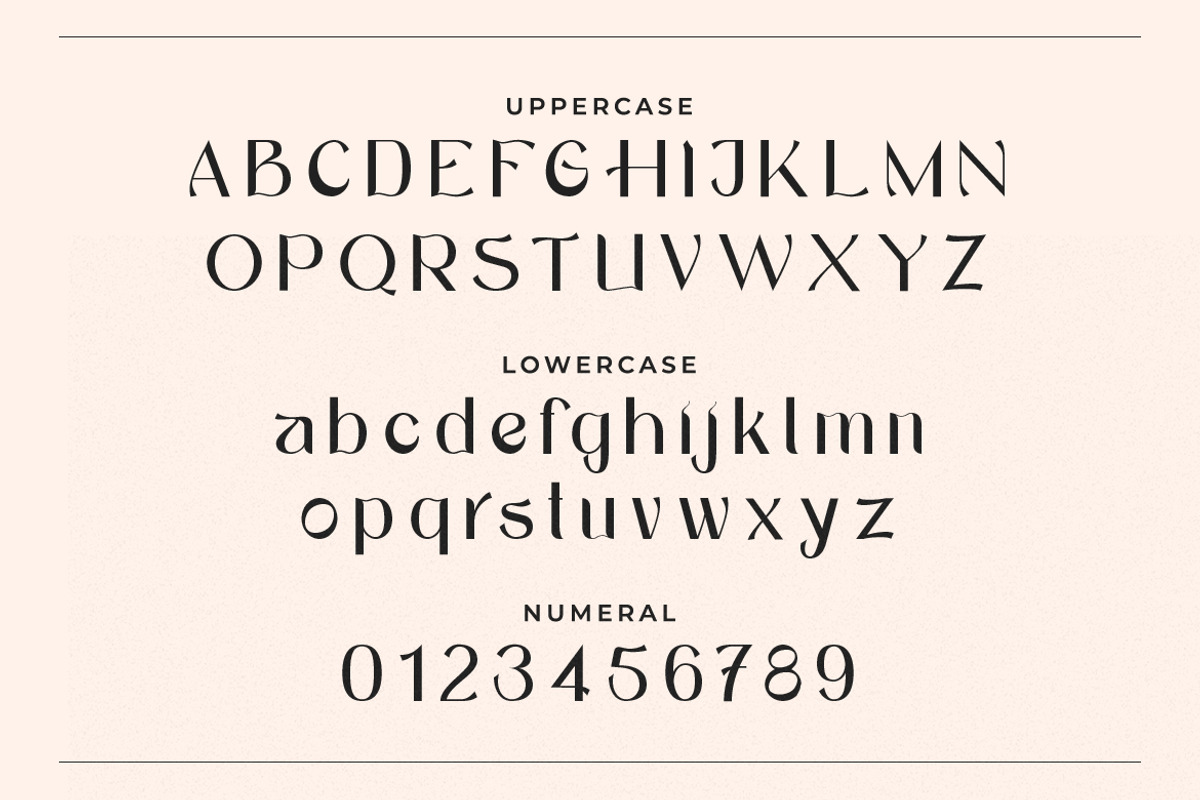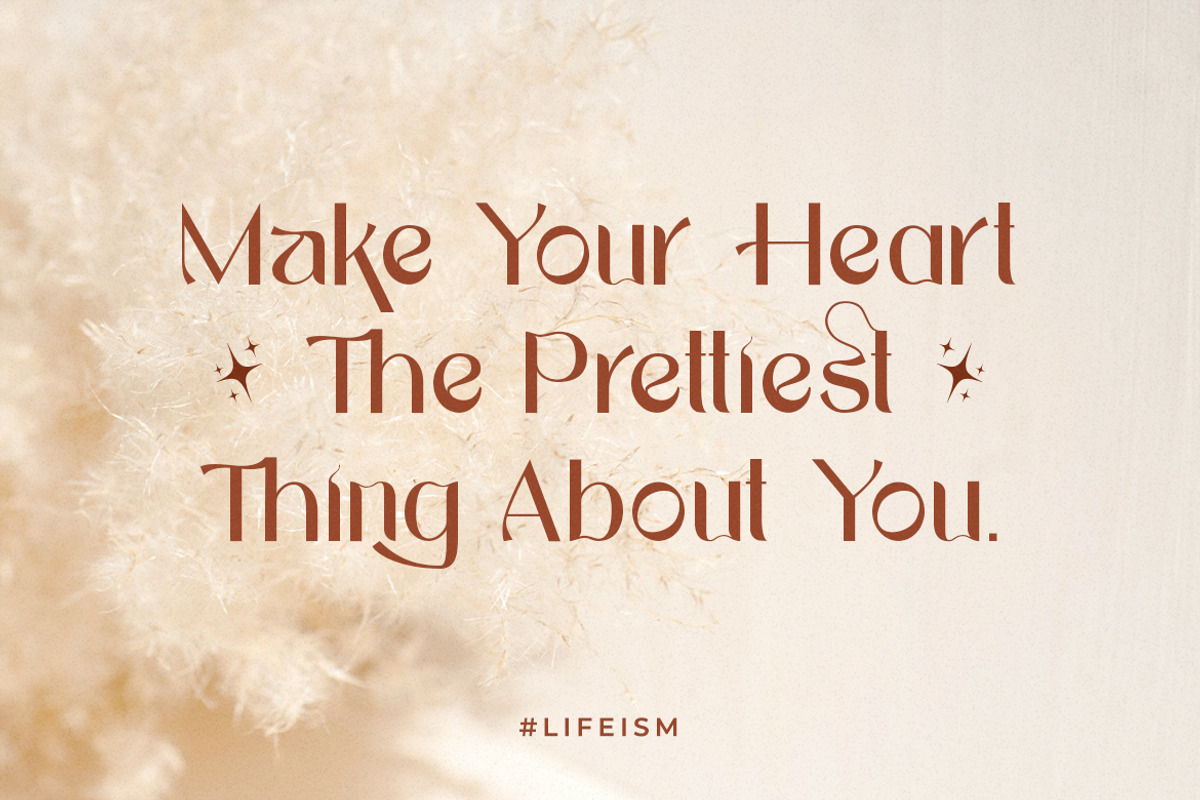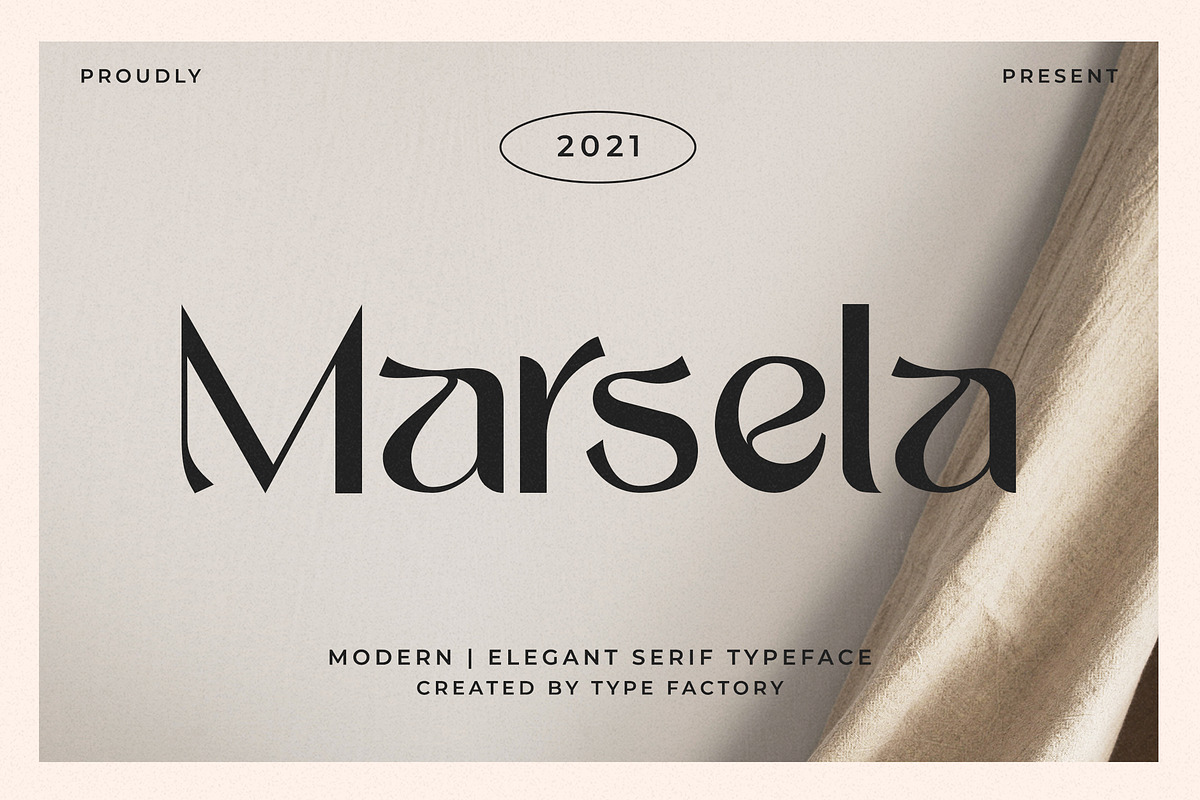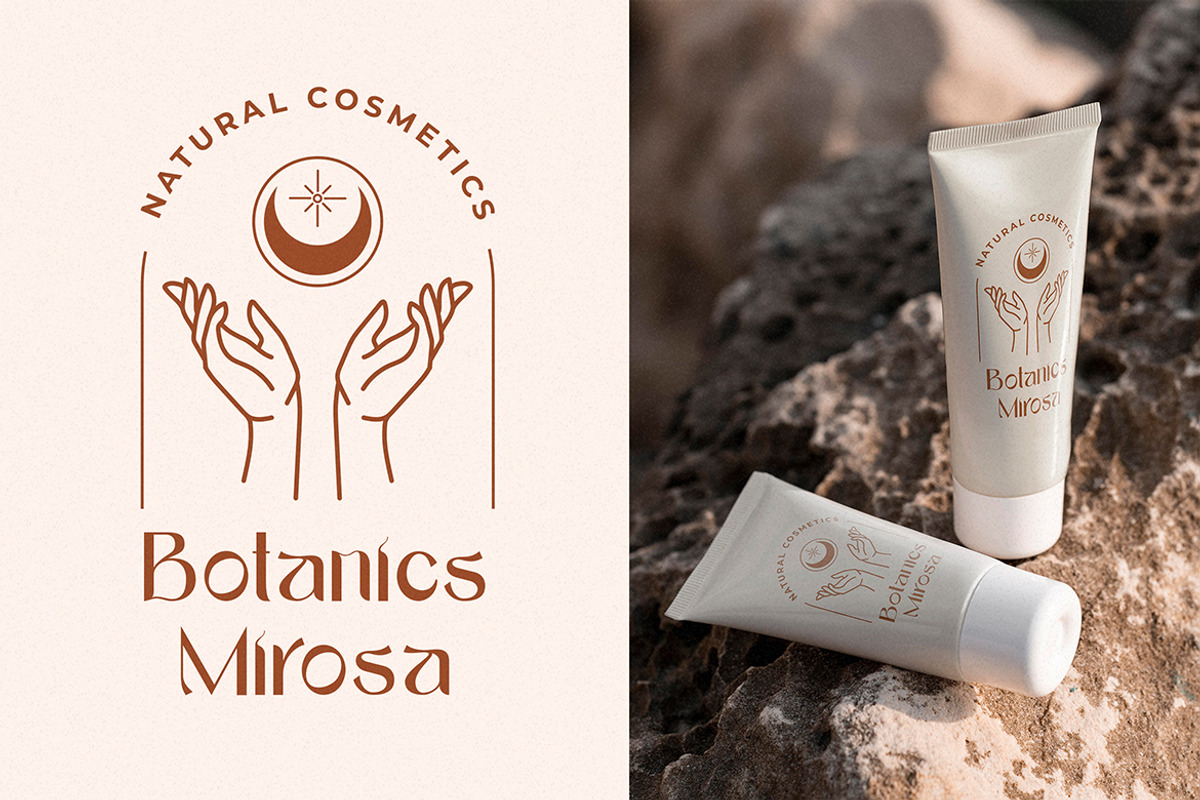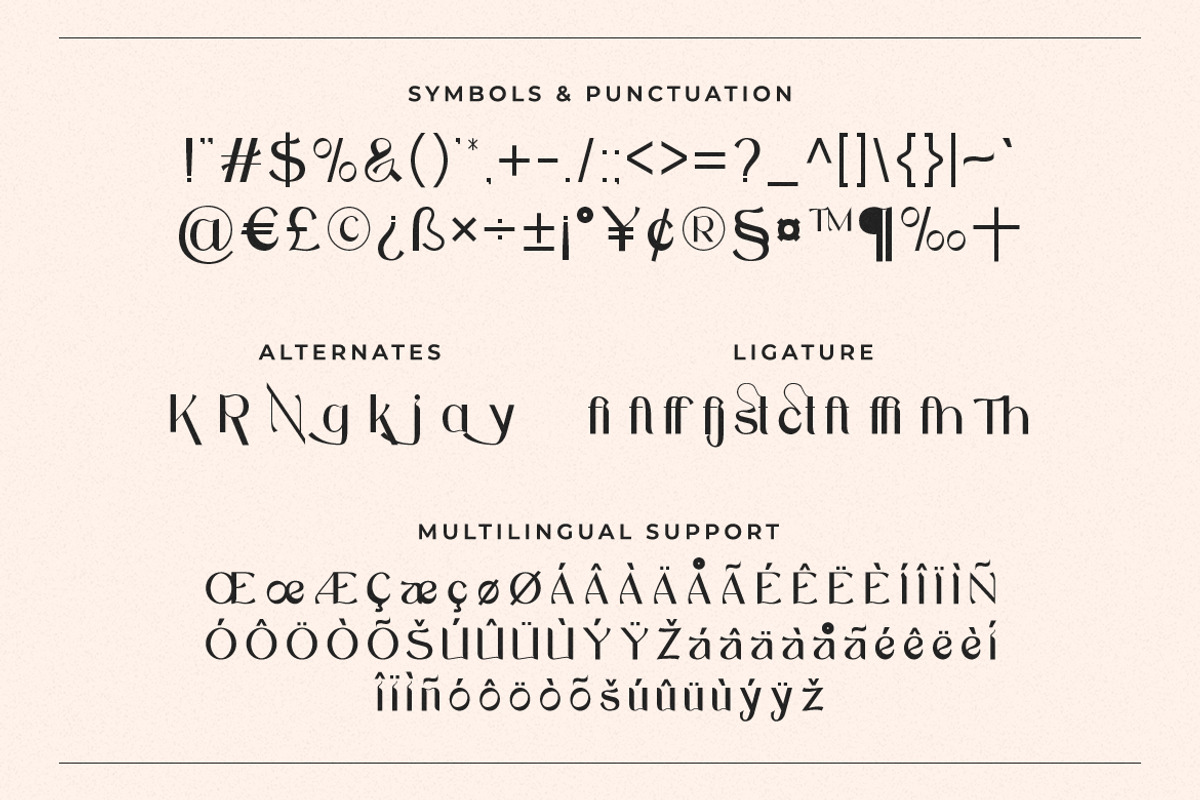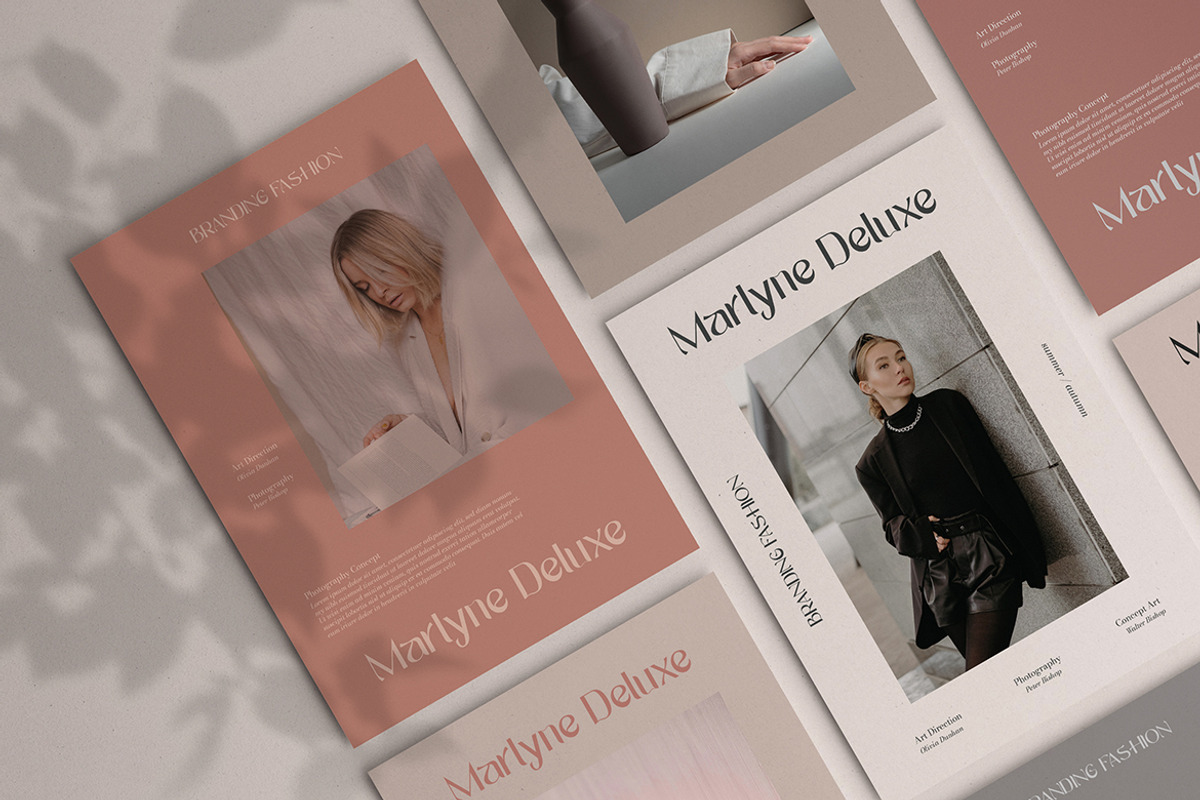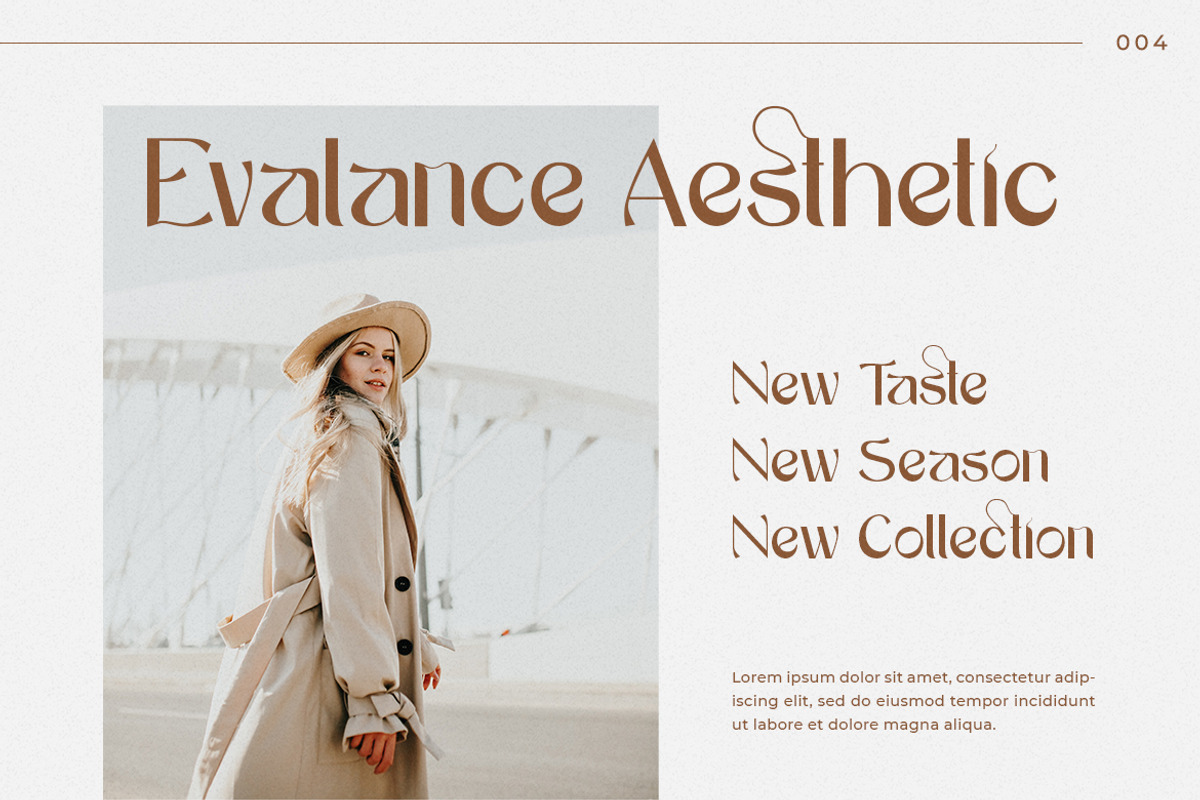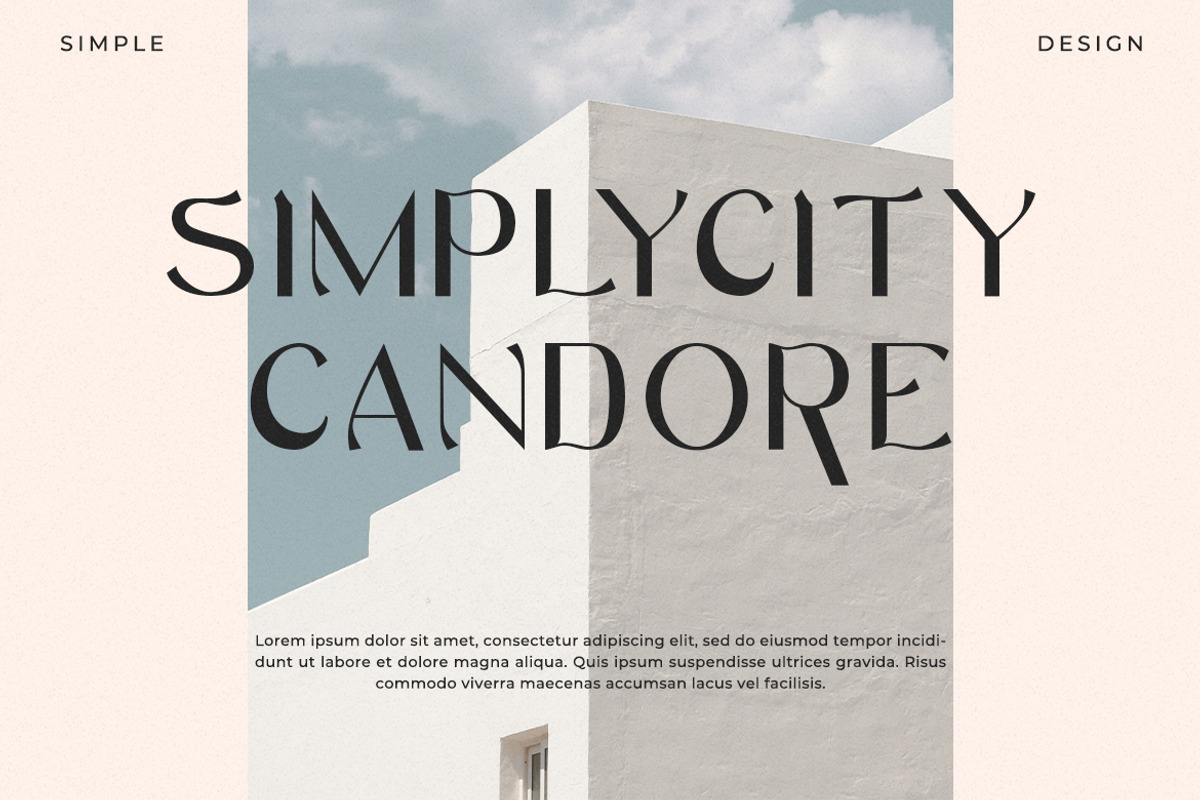
Marsela - Elegant Serif Font
Marsela is an elegant serif that blends traditional influences into a contemporary aesthetic. Elegantly crafted and easily be matched to an incredibly large set of projects. Use marsela to achieve an exquisite, yet subtle look and maximum versatility.